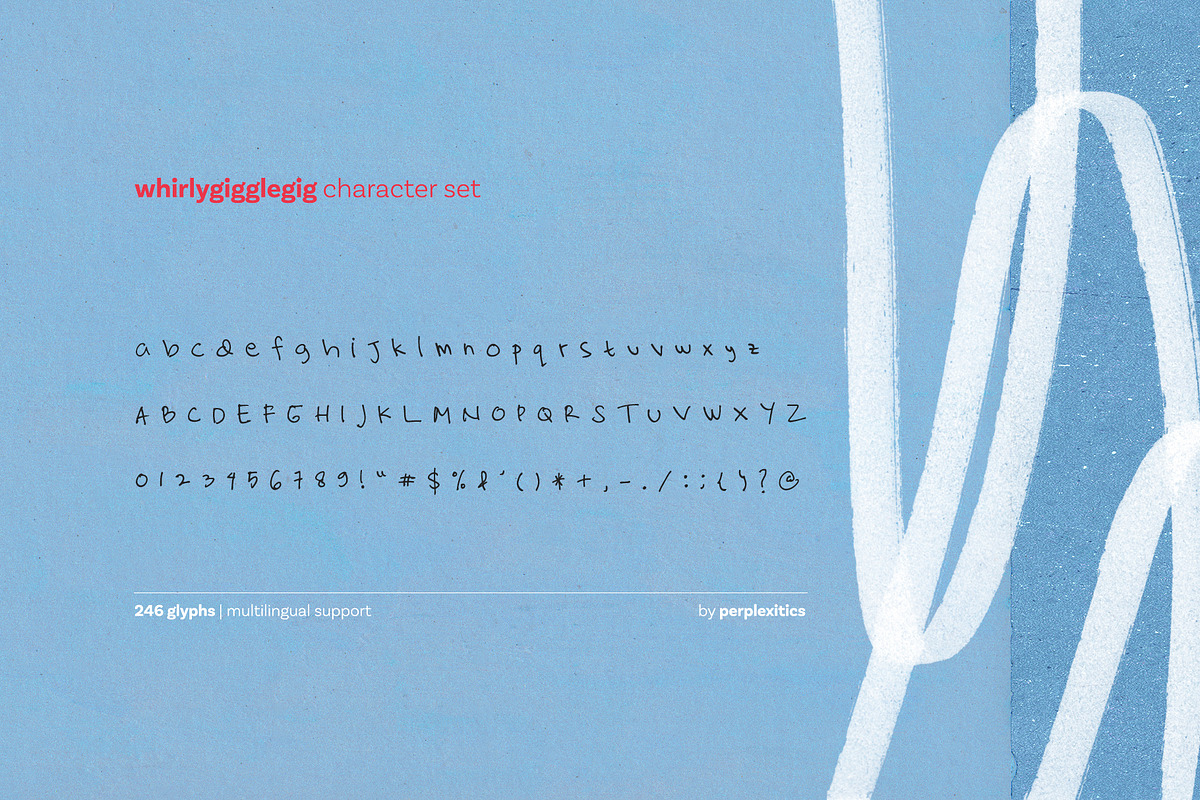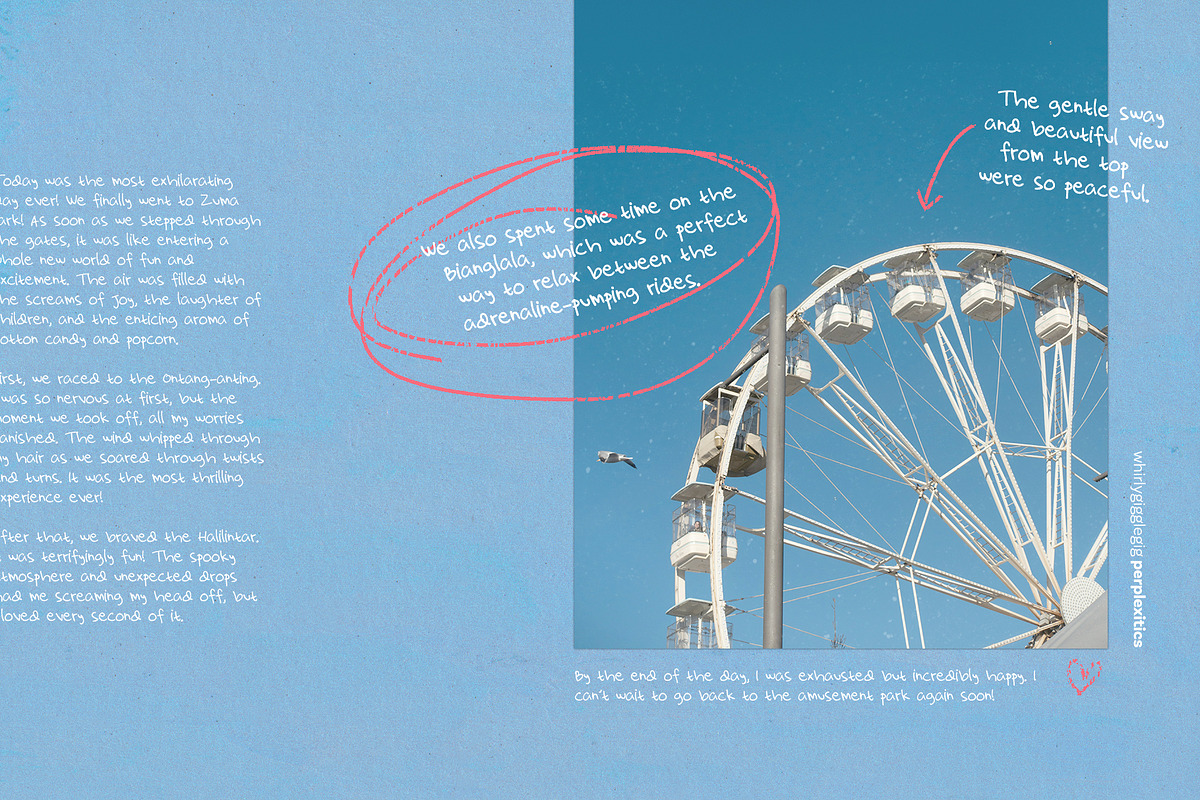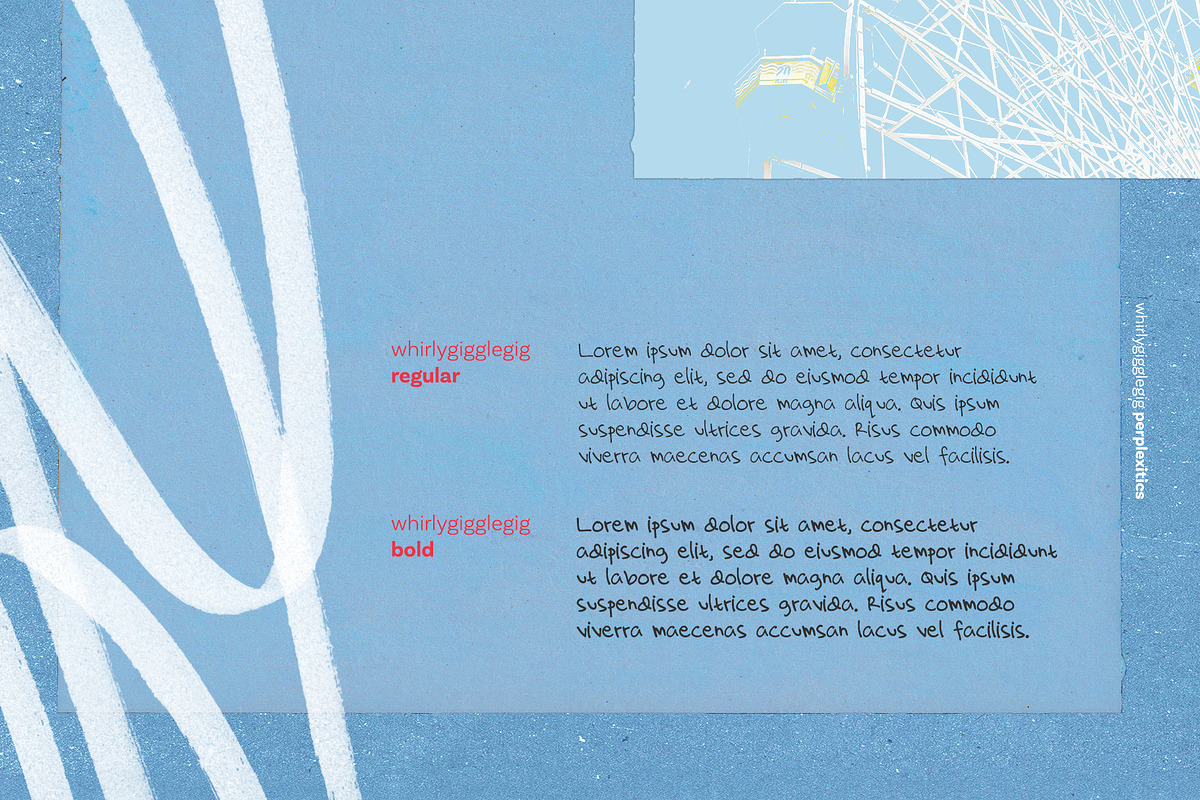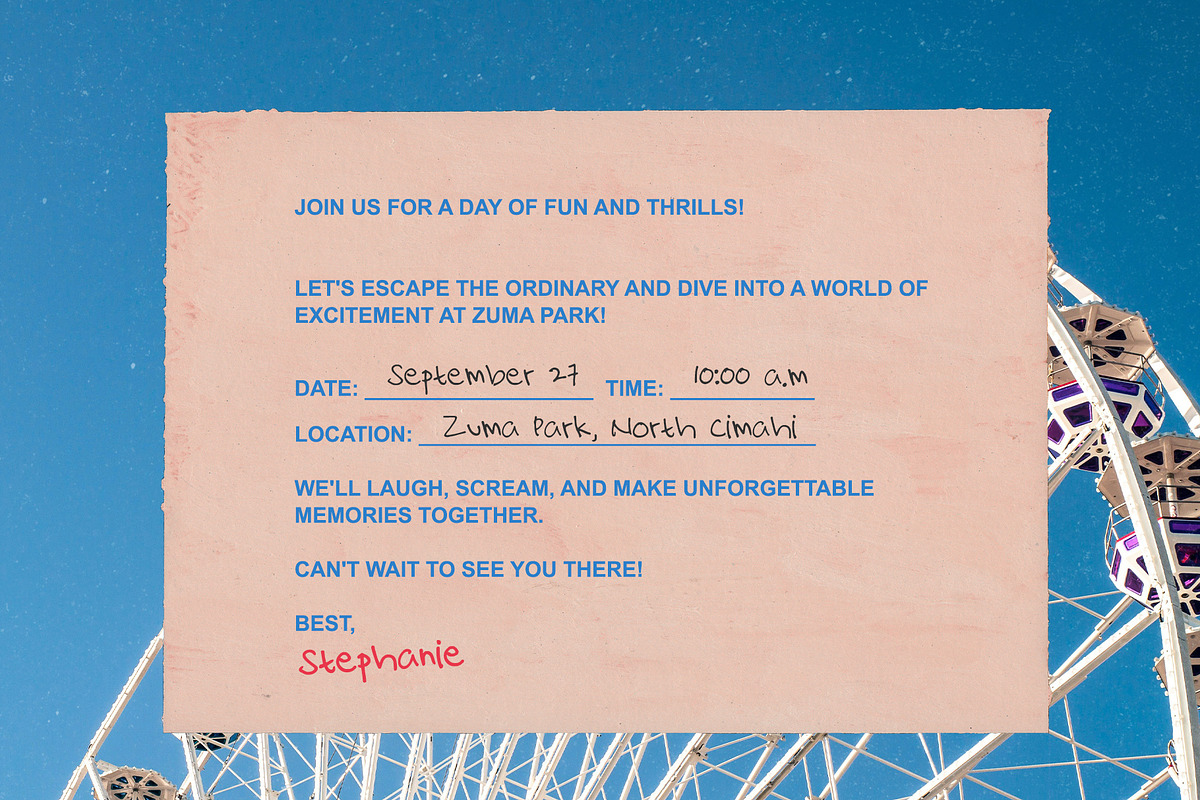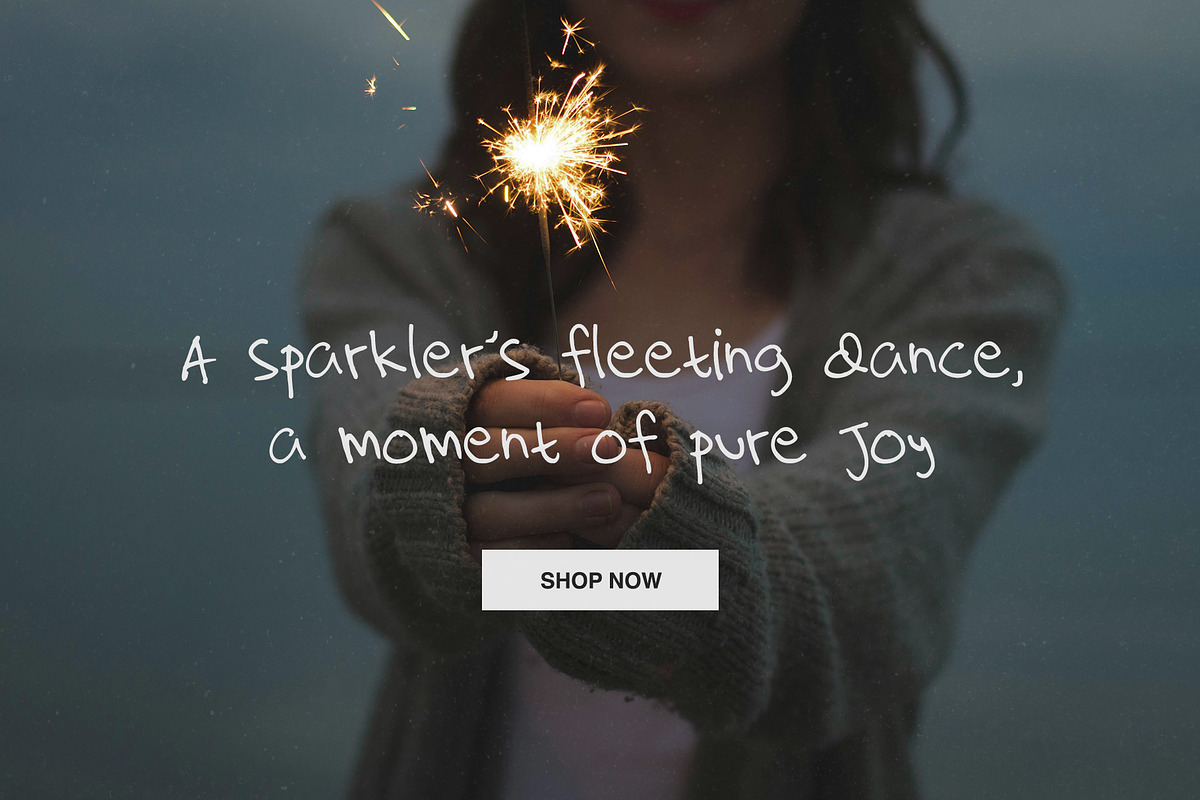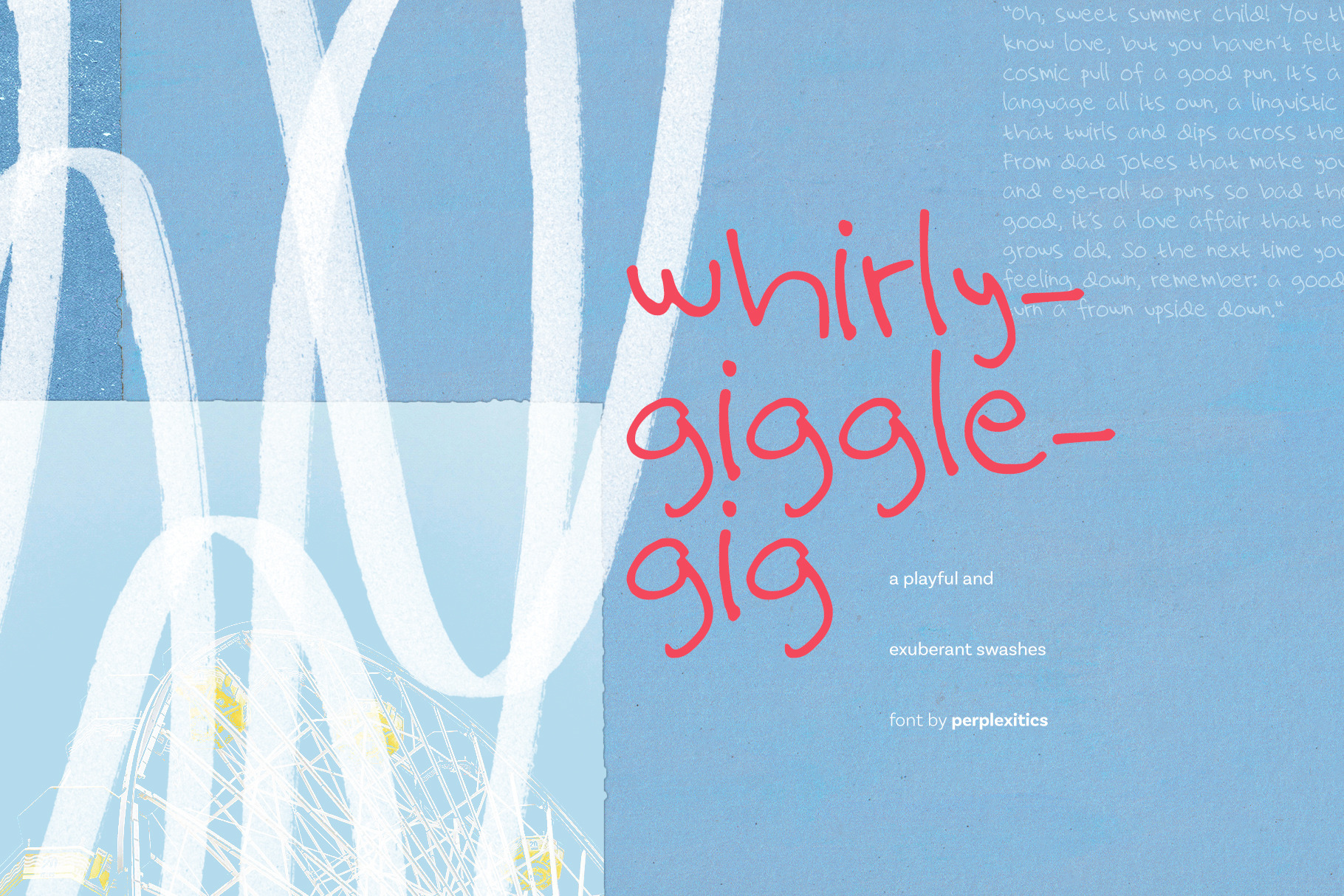
Whirlygigglegig Handwritten Font
Whirlygigglegig is a font that dances on the precipice of legibility and chaos. Its letters, each a mischievous sprite, pirouette and prance across the page, their forms twisting and turning in a dizzying display of typographic exuberance. A kaleidoscope of curves and countercurves, Whirlygigglegig is a font that defies categorization, a whimsical whirlwind of letters that both delights and disorients, hehe....
Whirlygigglegig Font is packed with everything you need, including uppercase and lowercase letters, numbers, and punctuation. Consists of 246 glyphs. Multilingual support.